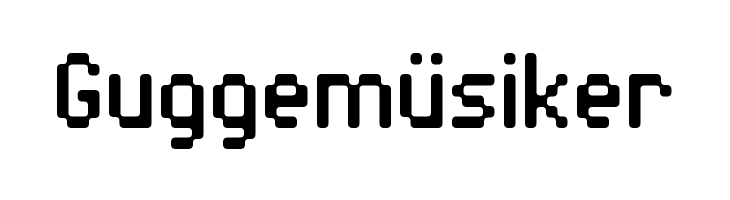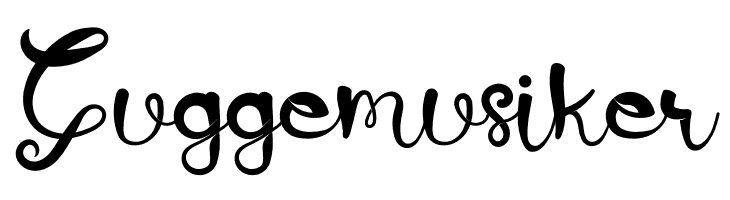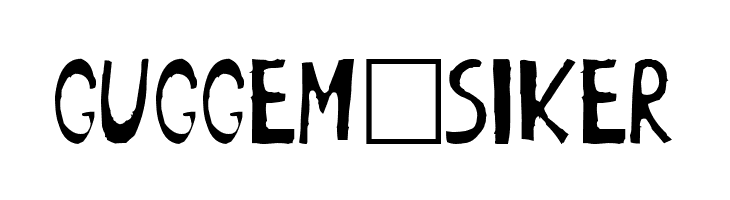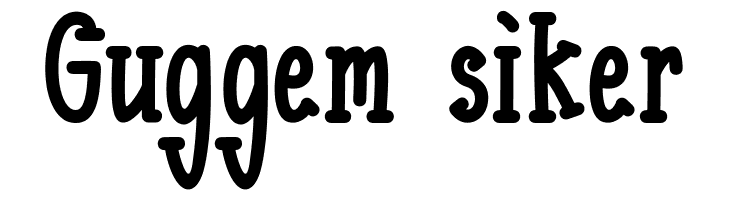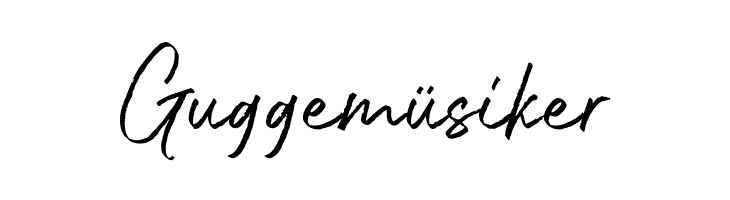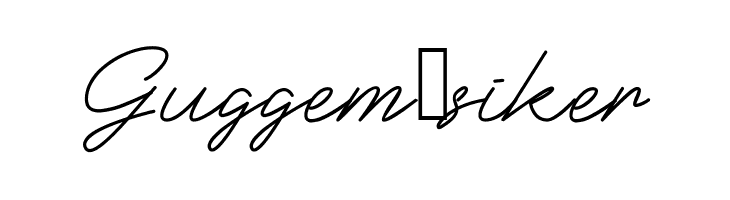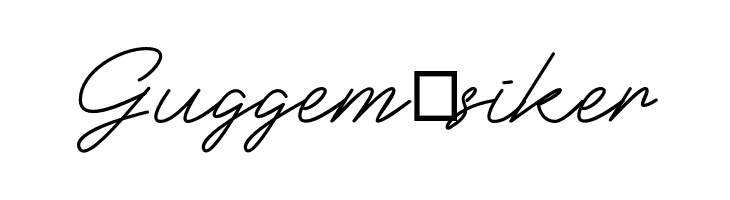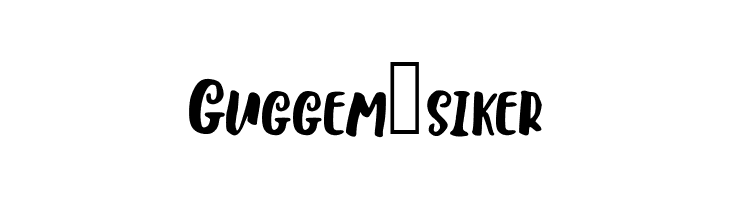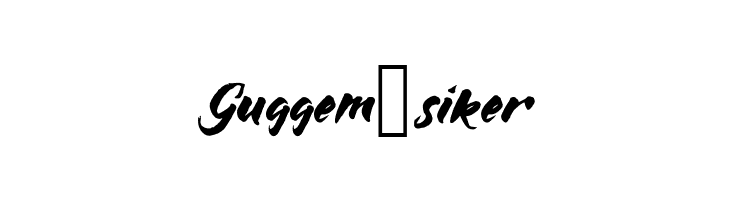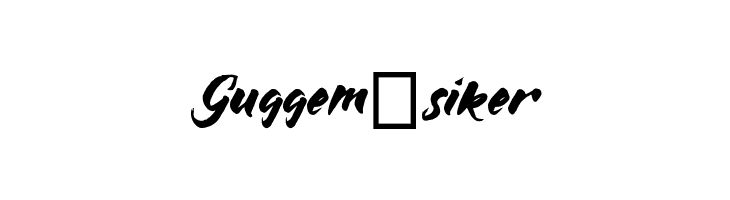
A pixelated, retro-style font with bold, blocky characters and rounded corners.
A playful, handwritten font with a casual and informal style.
A playful and elegant script font with a handwritten touch.
A whimsical, handwritten font with curly and looping strokes.
A dynamic and elegant script font with fluid, connected letterforms.
A cursive, calligraphy-inspired font with elegant loops and swashes.
An elegant, flowing script font with smooth, cursive strokes and graceful curves.
A bold, playful handwritten font with a casual and friendly vibe.
A playful, handwritten-style font with bold, rounded characters.
A flowing, cursive script font with elegant, connected strokes.
A graceful script font with fluid, cursive strokes and elegant loops.
A bold, dynamic brush script font with flowing strokes and a hand-painted look.
A bold, expressive handwritten font with dynamic curves and a playful feel.
A sophisticated script font with elegant, flowing cursive strokes.
A flowing, cursive script font with elegant, slanted characters.
A bold, dynamic script font with fluid, connected strokes and a modern artistic style.
A bold, expressive script font with fluid, cursive strokes.
A geometric, modern font with a hexagonal, futuristic design.
A geometric, angular font with a modern, tech-inspired design.
A bold, playful font with whimsical curves and thick strokes.
A whimsical and decorative font with a hand-drawn appearance.
A bold, dynamic handwritten font with smooth curves and a casual style.
A bold, outlined font with a playful, cartoonish style.
A bold, playful font with a 3D effect and comic book style.
A fluid and elegant script font with connected strokes and a natural handwriting style.